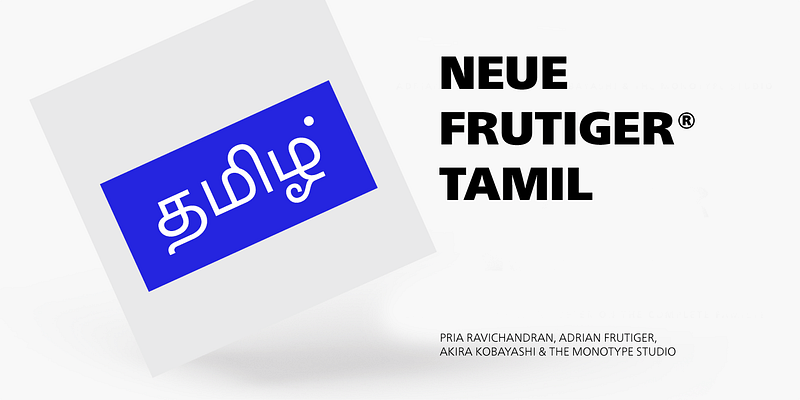
Neue Frutiger Tamil was created by Pria Ravichandran and a team of designers and font engineers from the Monotype Studio, under the direction of Monotype type director Akira Kobayashi. The family is available in 5 weights from Light to Bold to support the Tamil script.The typographic forms of Neue Frutiger Tamil are familiar and friendly. The Tamil shows traces of elements that is reminiscent of the calligraphic influences found in the 20th-century designs. Reflecting the modern typographic needs of the Tamil script, this type family is in the upright style. These two factors ensure that the two scripts, Tamil, and Latin pair elegantly. The result, Neue Frutiger Tamil, is an eclectic contemporary type family that bridges the past and the present.Neue Frutiger Tamil embodies the same warmth and clarity as Adrian Frutiger’s original design, but allows brands to maintain their visual identity, and communicate with a consistent tone of voice, regardless of the language. It is part of the Neue Frutiger World collection, offering linguistic versatility across environments – suited to branding and corporate identity, advertising, signage, wayfinding, print, and digital environments.